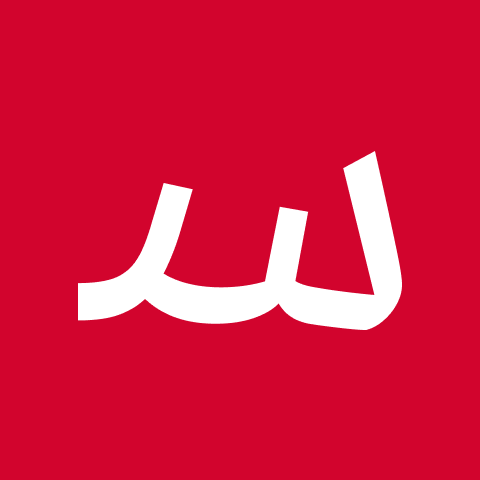
Quarantine
The Quarantine typeface was developed during COVID-19 quarantine in the spring of 2021 and continued to expand until the summer of 2023
The Quarantine typeface belongs to the category of display serif fonts, which is highly suitable for creative designs and short texts. With its bold tone and distinctive personality, the Quarantine font easily stands out in any advertising material.
The Quarantine typeface combines geometry and calligraphy, exhibiting unique details and finesse, especially in large sizes and prominent headings.  The Quarantine typeface also includes an Optical Size style that lets you adjust contrast thickness proportionally to text size.
Swash letters
Swash letters are embellishments inspired by calligraphy forms, incorporated into typefaces to control line length and enhance the beauty of the text. It is up to you whether or not to use swashes.
To use swash letters in the Quarantine typeface (such as ـی, ـن, ـس, ـک, ـب), enable the swash feature in the software you use.
Discretionary ligatures
Discretionary ligatures are typographic combinations inspired by calligraphic combinations in typefaces, and they are more decorative than standard ligatures. It is up to you whether to use these combinations.
To use discretionary ligatures in the Quarantine typeface (such as ین، ـسی، ـکک، ـیر، ـصی، نجـ، حجـ), enable the Discretionary Ligatures feature in your software.
Required Ligatures
Required Ligatures are a set of ligatures that are necessary for displaying correct and fluent reading. In the Quarantine typeface, ligatures for "لا، ـلا" and the sacred phrase "الله" have been included.
Latin characters
Latin characters in the Quarantine typeface harmonize with Perso/Arabic characters. Latin and Perso/Arabic characters are coordinated in size, spacing, and design features, resulting in a beautiful coexistence.
Weights Variety
The Quarantine typeface family consists of 9 weights and 4 Optical Size styles, providing a wide range of options for various uses, from print to digital media.
Design
Enhancing thin strokes and optimizing Optical Size are key features in the design of the Quarantine font. Creative design and the invention of new forms characterize the Quarantine font. Emphasis on surface usage over outlines, accentuation of fractures versus curves, and dynamic behavior in letter thickness variation imbue this font with a unique sense of excitement and allure.
Optical Size
Four styles have been considered in the Quarantine typeface to determine the thinness of the lines. For better display of thin lines in smaller sizes, it is recommended to use a lower value for the optical size.